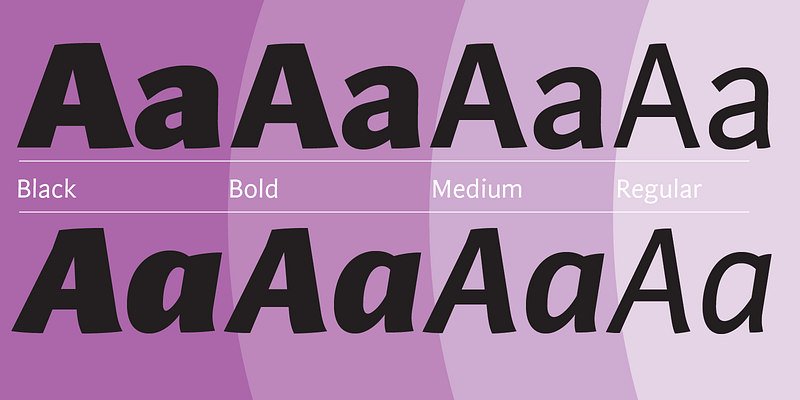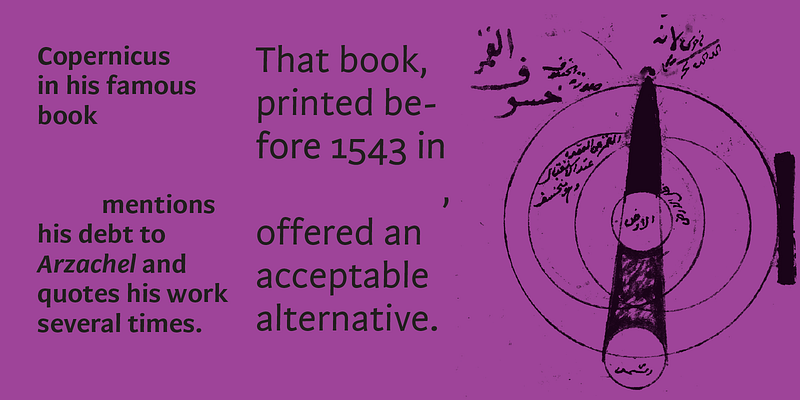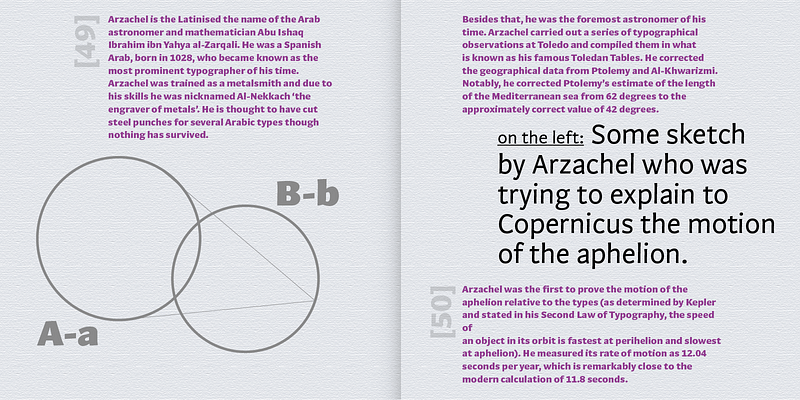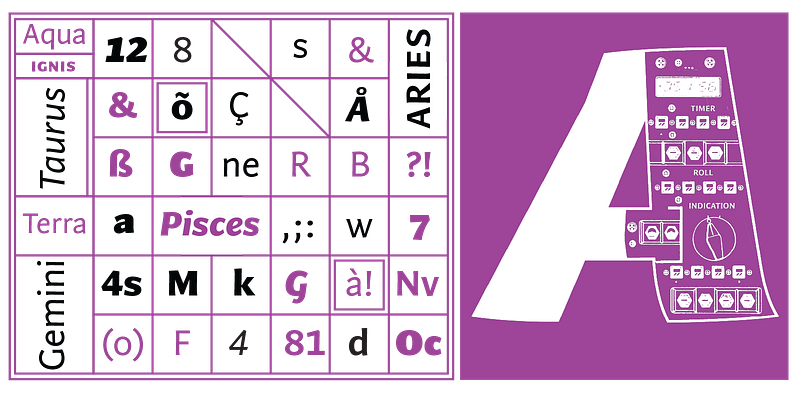
Arzachel is a humanist sanserif with a big x-height and a clear organic look. It’s an all-rounder that works very nicely with texts for publishers and advertisers, conceived to accompany Zenon.